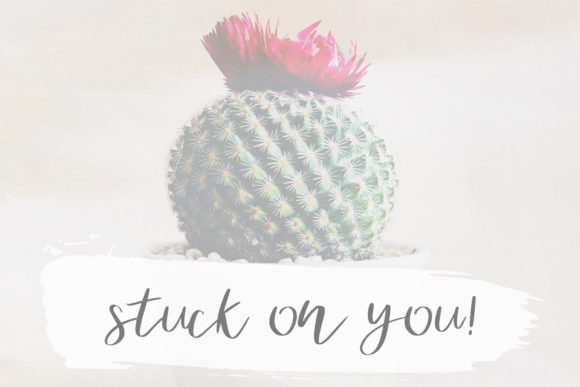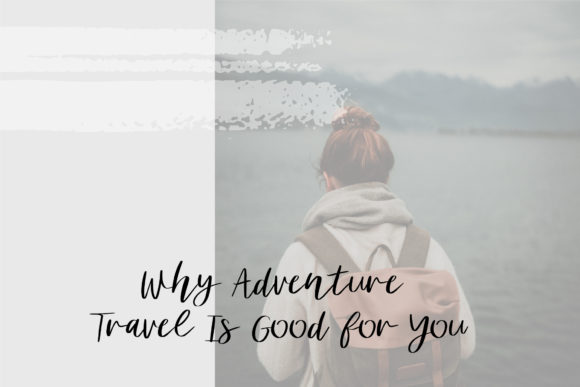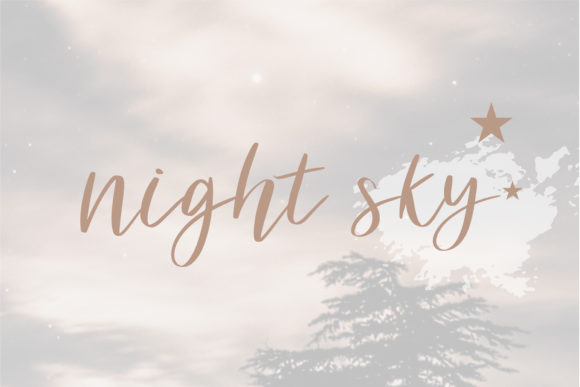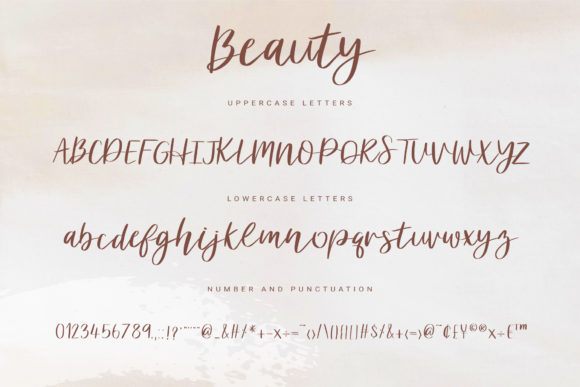
Introducing Beauty Font: Elevate Your Designs with Elegance and Sophistication
Are you on the hunt for a font that exudes class, sophistication, and a touch of modern flair? Look no further than Beauty Font, a stunning handwritten typeface that is sure to capture your heart. With its exquisite calligraphic influences and fresh, contemporary feel, Beauty Font is the perfect addition to any design project.
The Story Behind Beauty Font
Beauty Font is more than just a collection of letters – it’s a carefully crafted art piece designed to bring a touch of elegance to your designs. Its creator has masterfully blended traditional calligraphic elements with modern sensibilities, resulting in a font that feels both timeless and cutting-edge.
What Makes Beauty Font So Special?
- Classy Calligraphic Influences: Beauty Font boasts beautiful, flowing lines that evoke the sophistication of traditional calligraphy. Each letter is meticulously designed to convey a sense of luxury and refinement.
- Contemporary and Fresh: Despite its classic roots, Beauty Font feels remarkably modern and fresh. Its unique character makes it perfect for designers looking to add a distinctive touch to their work.
- Versatility: Whether you’re working on a branding project, packaging design, or digital content, Beauty Font adapts seamlessly to any medium. Its versatility makes it an invaluable addition to your font library.
- Easy to Read: While Beauty Font is undoubtedly elegant, it’s also remarkably legible. This makes it suitable for both headlines and body text, offering you the flexibility to use it across a wide range of applications.
How to Use Beauty Font in Your Projects
Integrating Beauty Font into your designs is incredibly straightforward. Here are a few ideas to get you started:
- Branding and Logotypes: Use Beauty Font to create stunning logos and brand identities that stand out from the crowd.
- Wedding and Event Invitations: Add a touch of romance and sophistication to your wedding invitations, event flyers, and other paper goods.
- Packaging Design: Elevate your product packaging with Beauty Font, making your products feel more luxurious and high-end.
- Digital Content: Incorporate Beauty Font into your website, social media graphics, or digital marketing materials to add a classy touch.
Tips for Pairing Beauty Font with Other Fonts
To get the most out of Beauty Font, consider pairing it with complementary fonts. Here are some tips:
- Contrasting Fonts: Pair Beauty Font with a clean, sans-serif font to create visual interest and highlight the unique qualities of your design.
- Script and Serif Combinations: For a more traditional look, combine Beauty Font with a classic serif font. This works particularly well for editorial and branding projects.
Beauty Font is more than just a font – it’s a design statement. With its exquisite calligraphic influences, contemporary feel, and versatility, it’s poised to become your go-to choice for projects that demand elegance and sophistication. Whether you’re a professional designer or a crafty DIY enthusiast, Beauty Font has the power to elevate your work to new heights. So why wait? Fall in love with Beauty Font and bring your projects to life in a way that truly stands out.